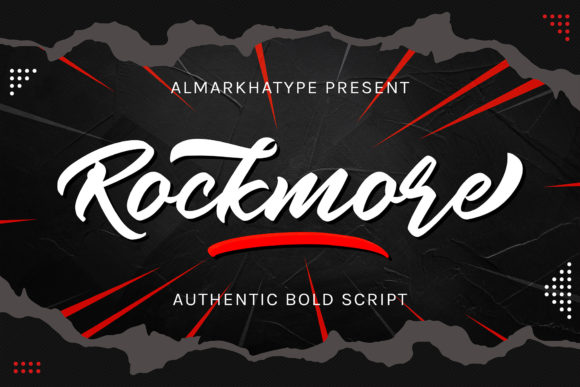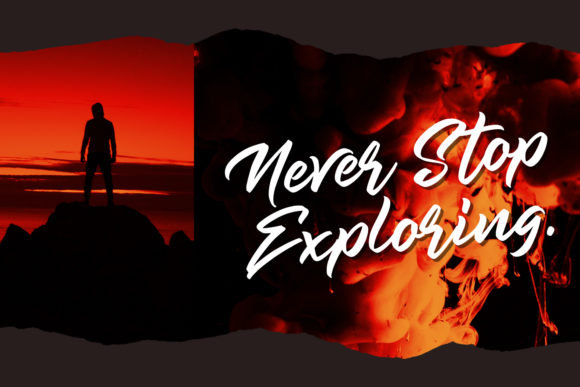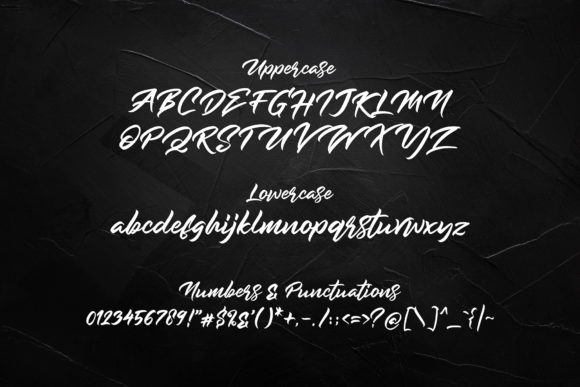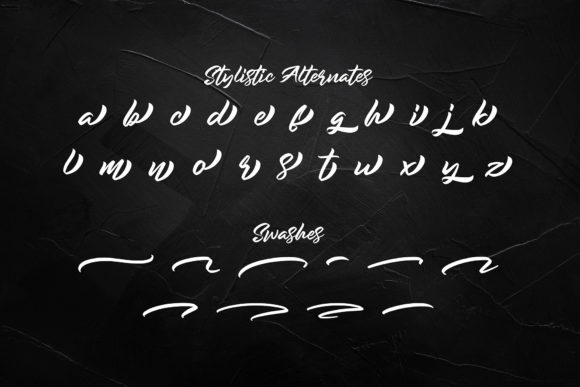
About Rockmore Font
Rockmore is a bold script font with a clear style and dramatic movements. This font is great for logos, printed quotes, invitations, cards, product packaging, headers, Logotype, Letterhead, Poster, Apparel Design, and much more!
Rockmore comes with uppercase, lowercase, numerals, accents (Multilingual characters), punctuations and a lot of gorgeous variations on each character!